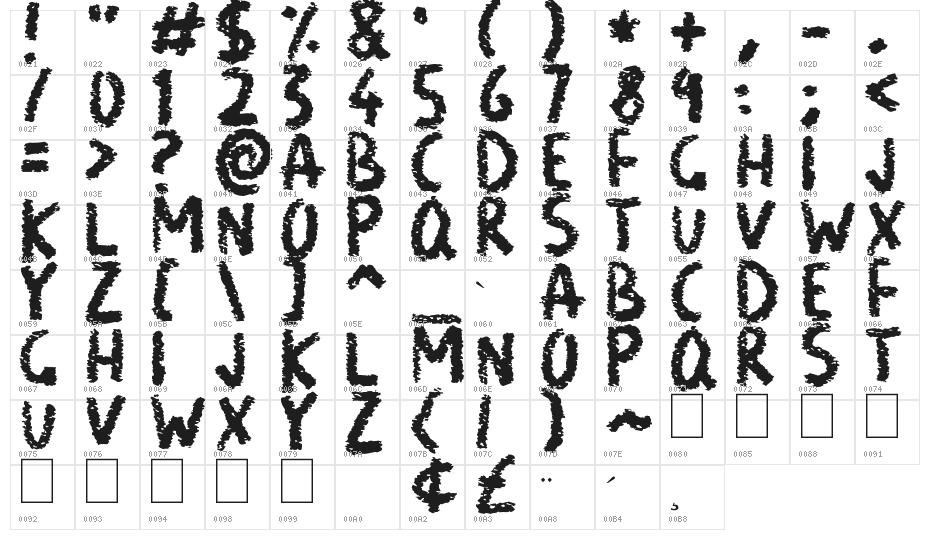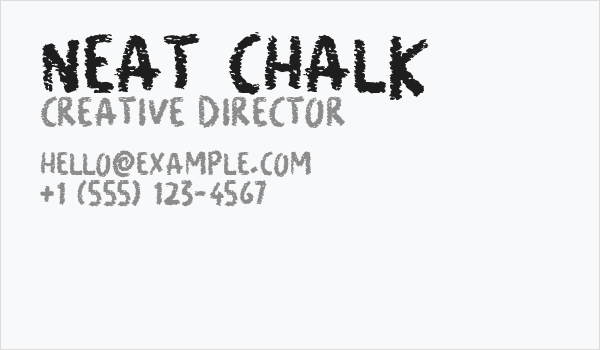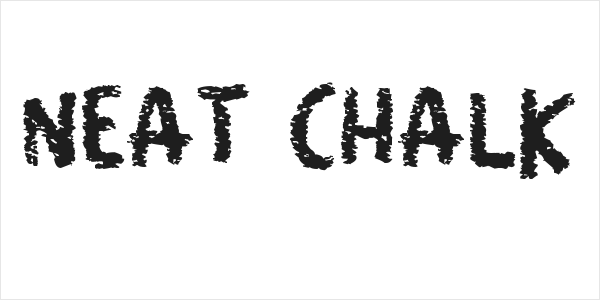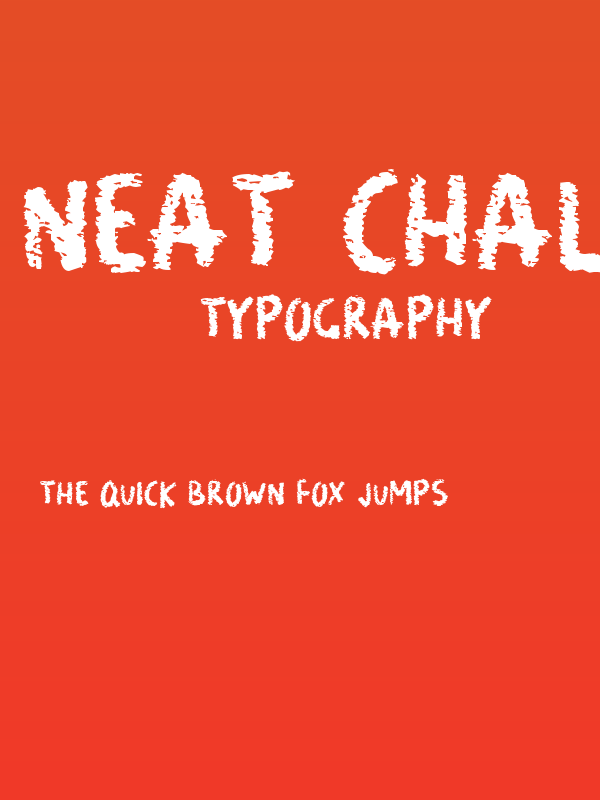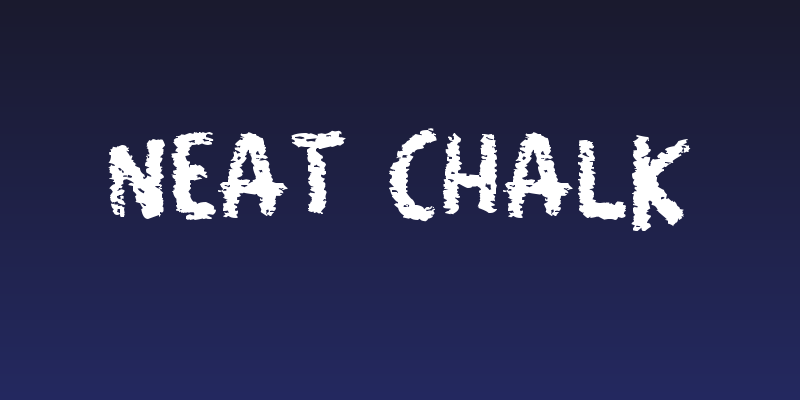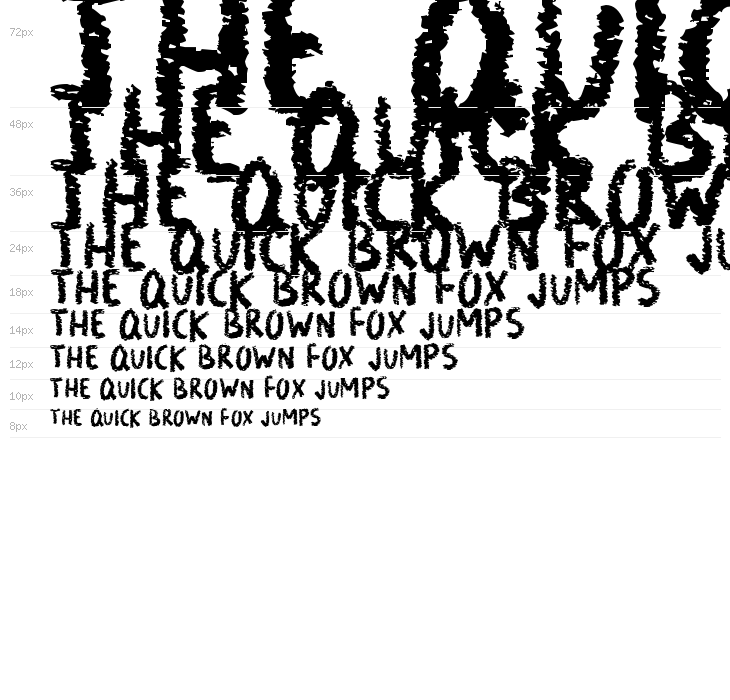
Neat Chalk Font
Neat Chalk Description
This font exudes a playful and informal style, reminiscent of chalk writing on a blackboard. The characters are bold and have a rough, textured appearance, giving them an authentic hand-drawn feel. The uppercase and lowercase letters maintain a consistent style, with slightly irregular edges that add to the casual and approachable vibe. The numbers and special characters follow the same design, ensuring a cohesive look across all elements. This font is perfect for projects that aim to convey creativity and a touch of nostalgia.
Overall StylePlayful, Informal
Use CaseHeadlines, Posters, Creative Displays
Proposed ProjectsIdeal for educational materials, children's books, creative posters, and cafe menus.